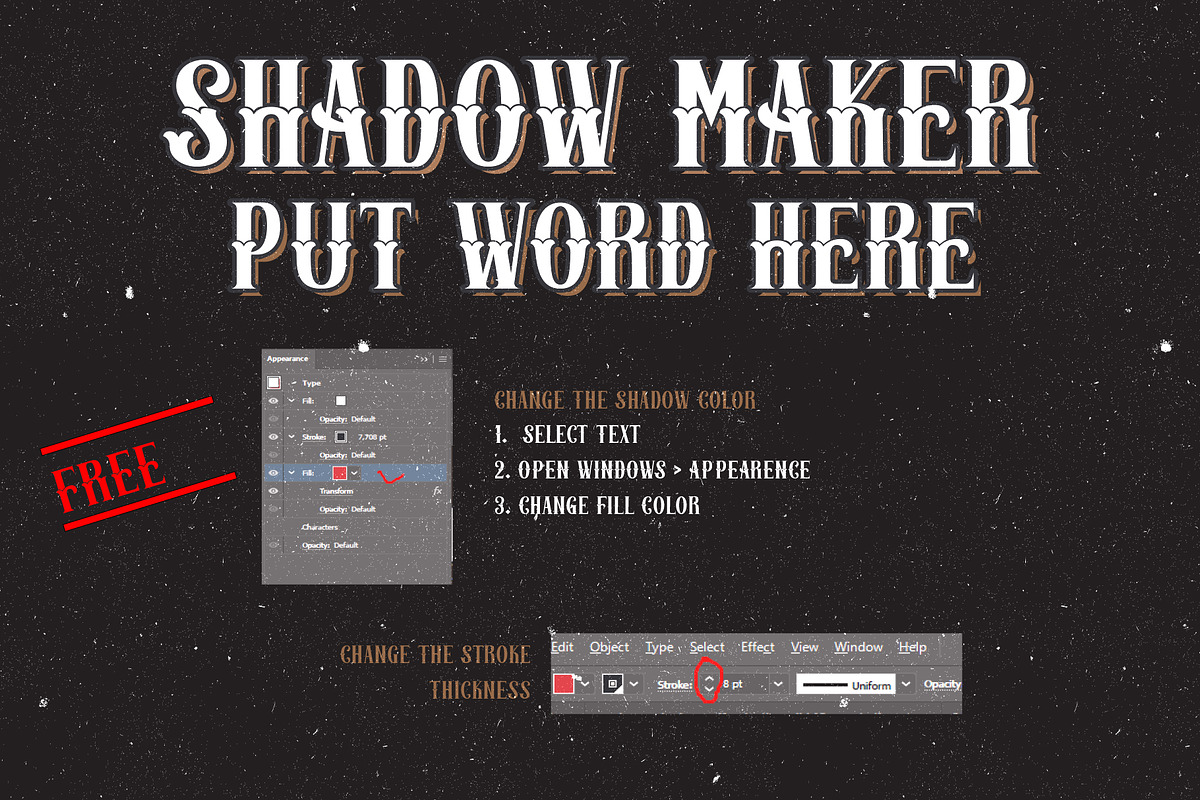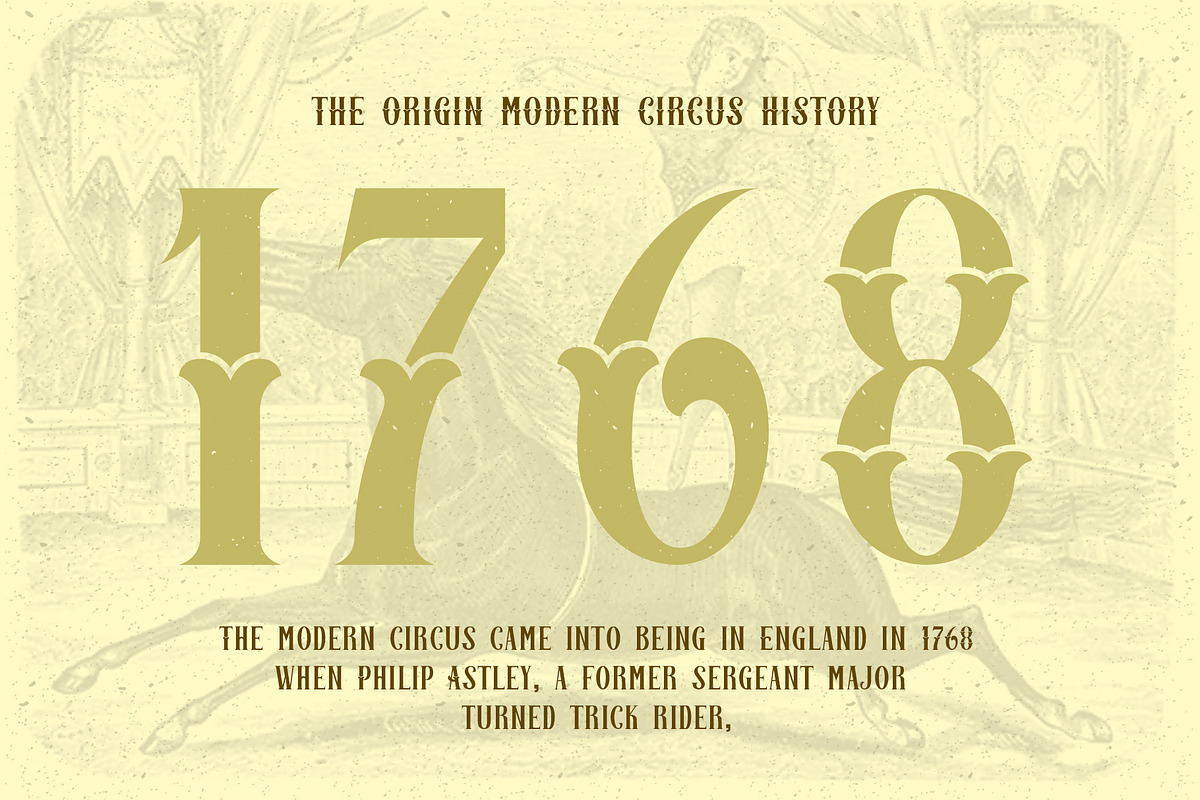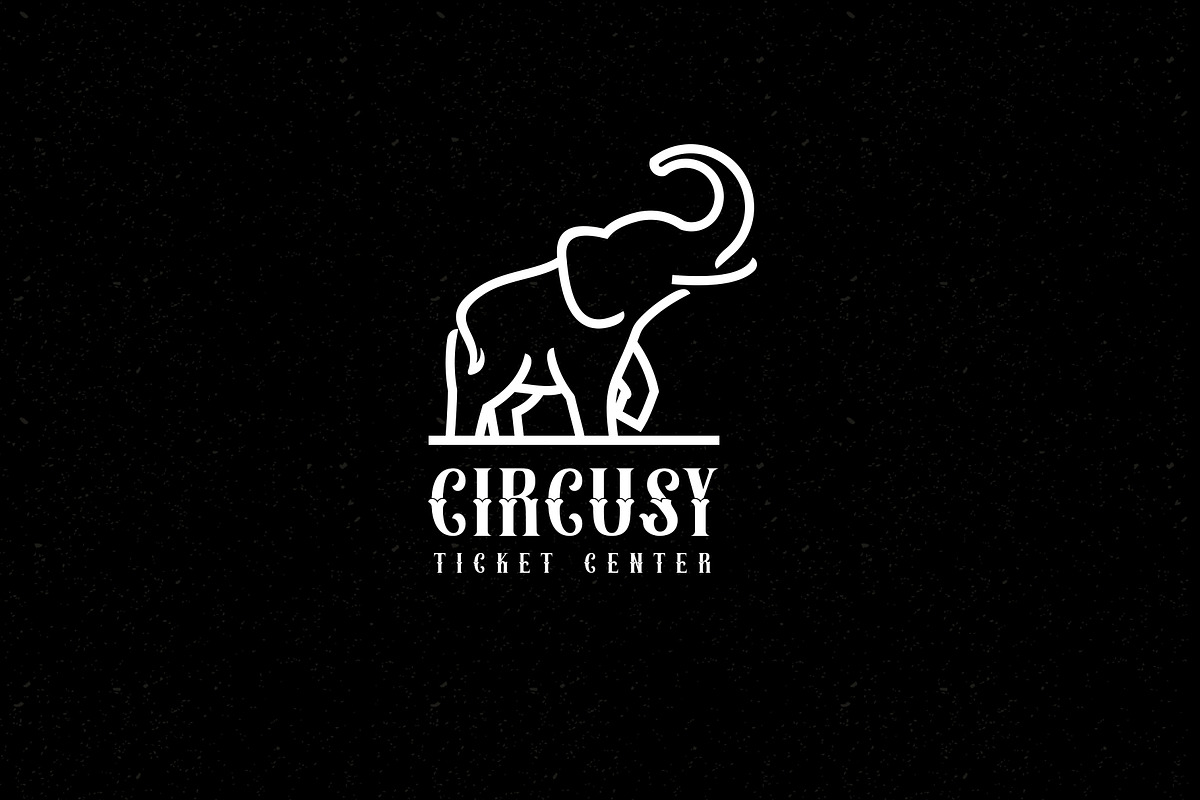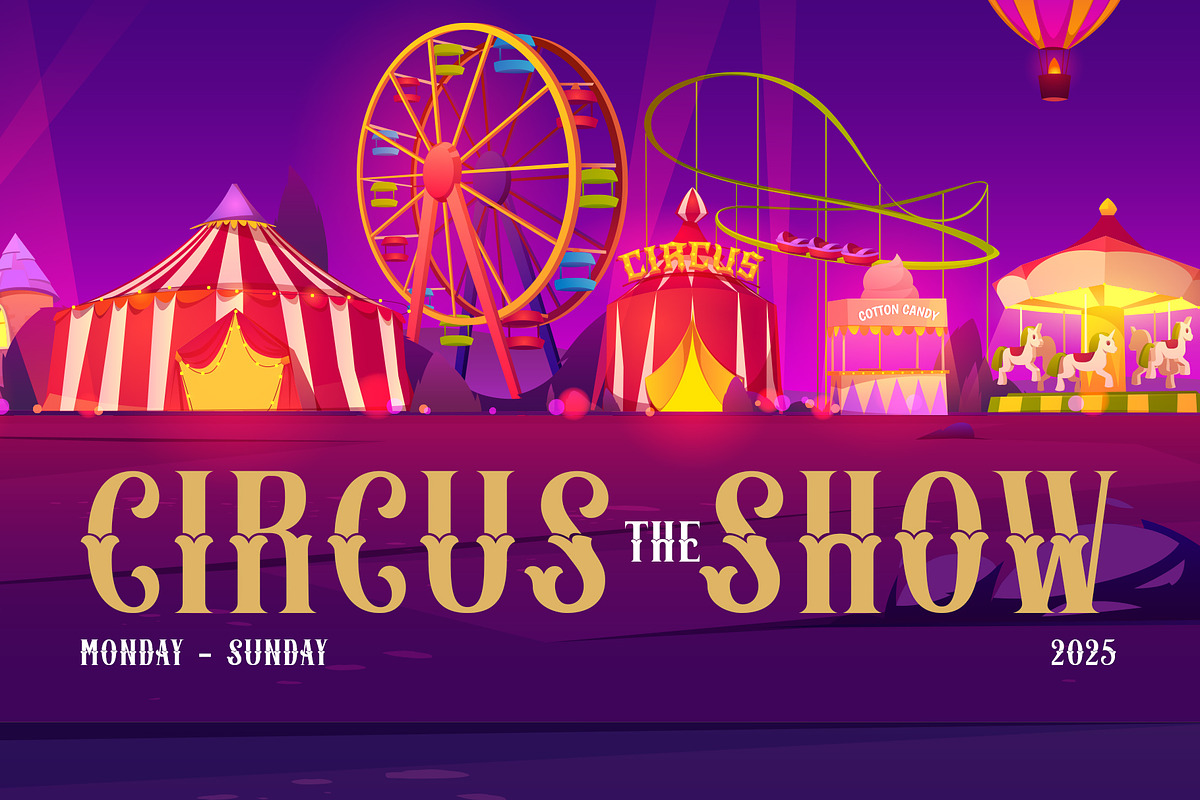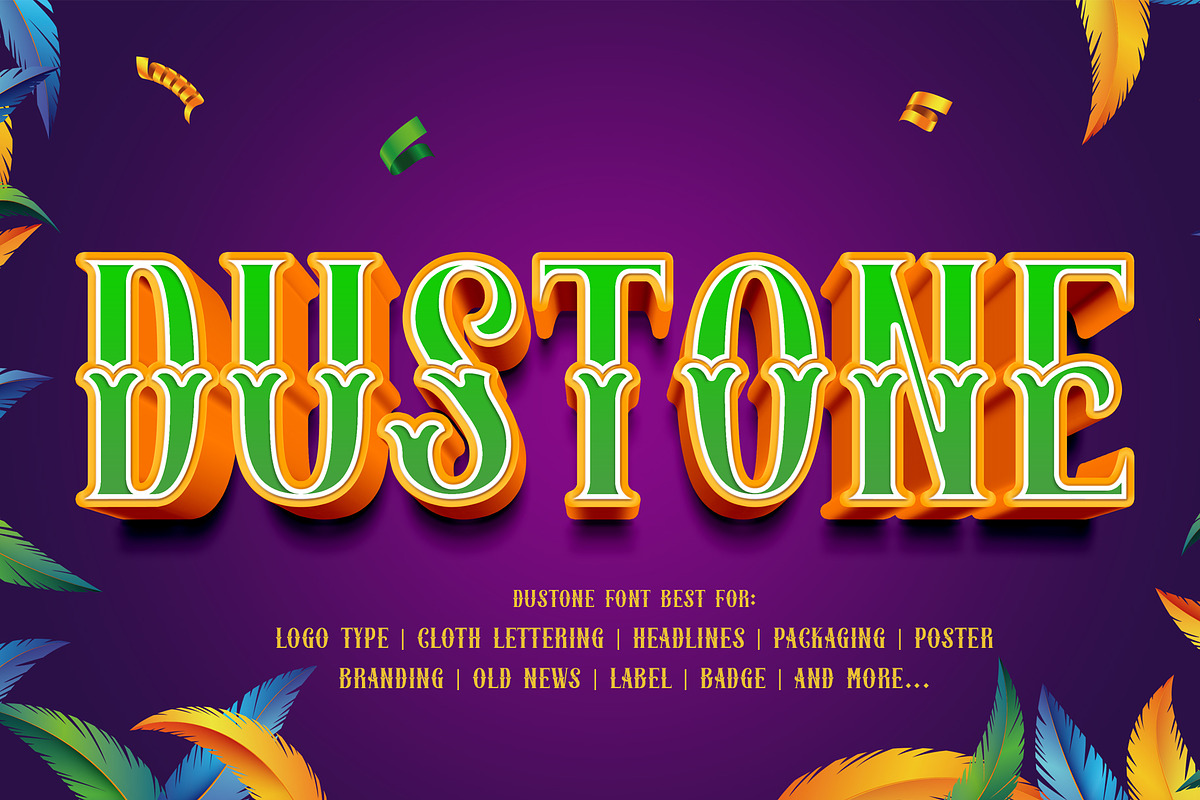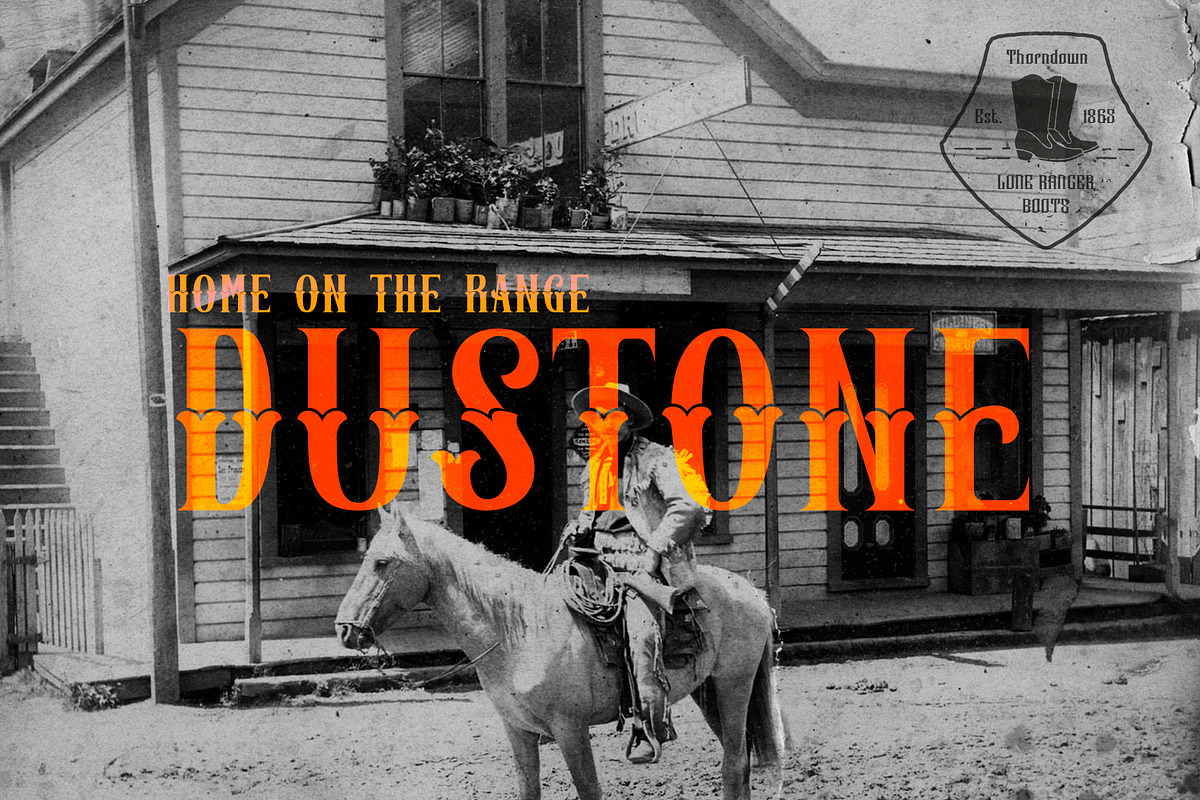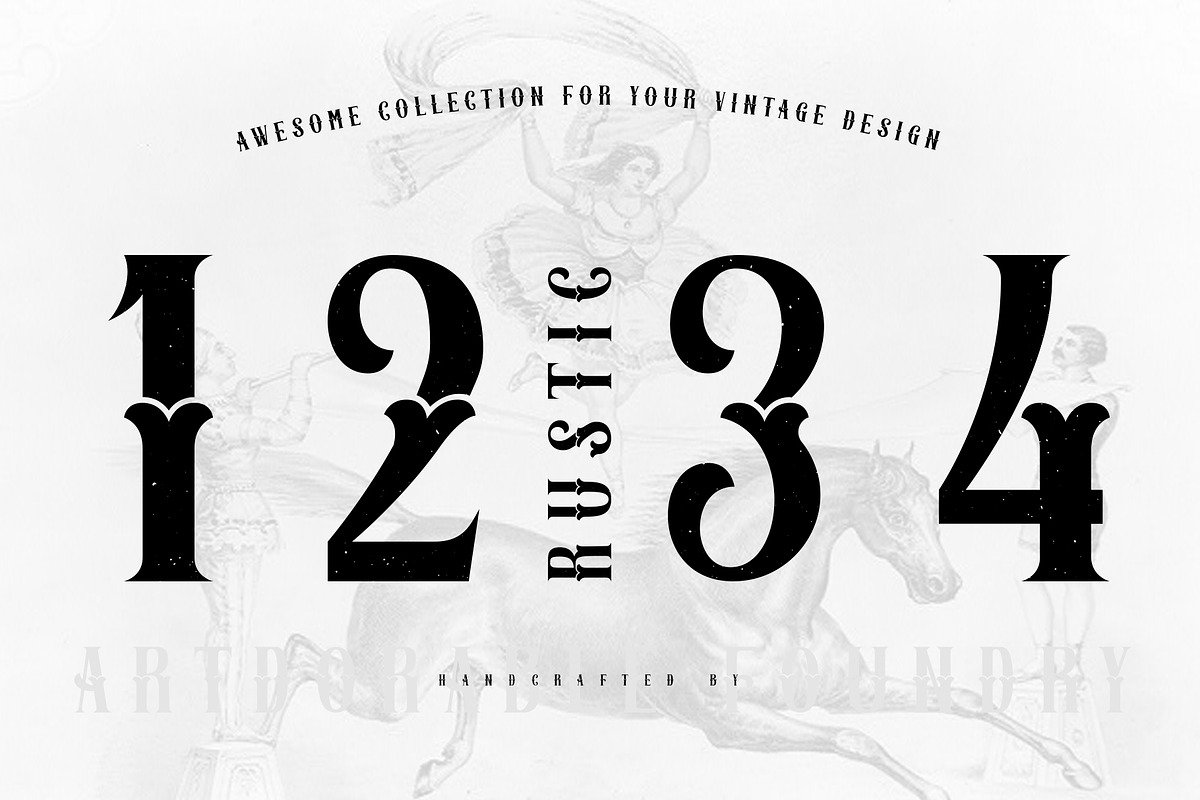
Dustone - Vintage Display Font
Dustone - Vintage Display Font is an old style font made carefully handcrafted come-up with two different styles Dustone Reguler and Dustone Rustic. The complete type from Caps and Lower Caps, numeric and punctuation. It's also have a modern touch suitable for logo text, branding, poster, old news headline, magazine/publishing, label, badge, packaging, or for any occasion.
Font features:
- All Caps and Small caps for lower case keyboard
- Numeric